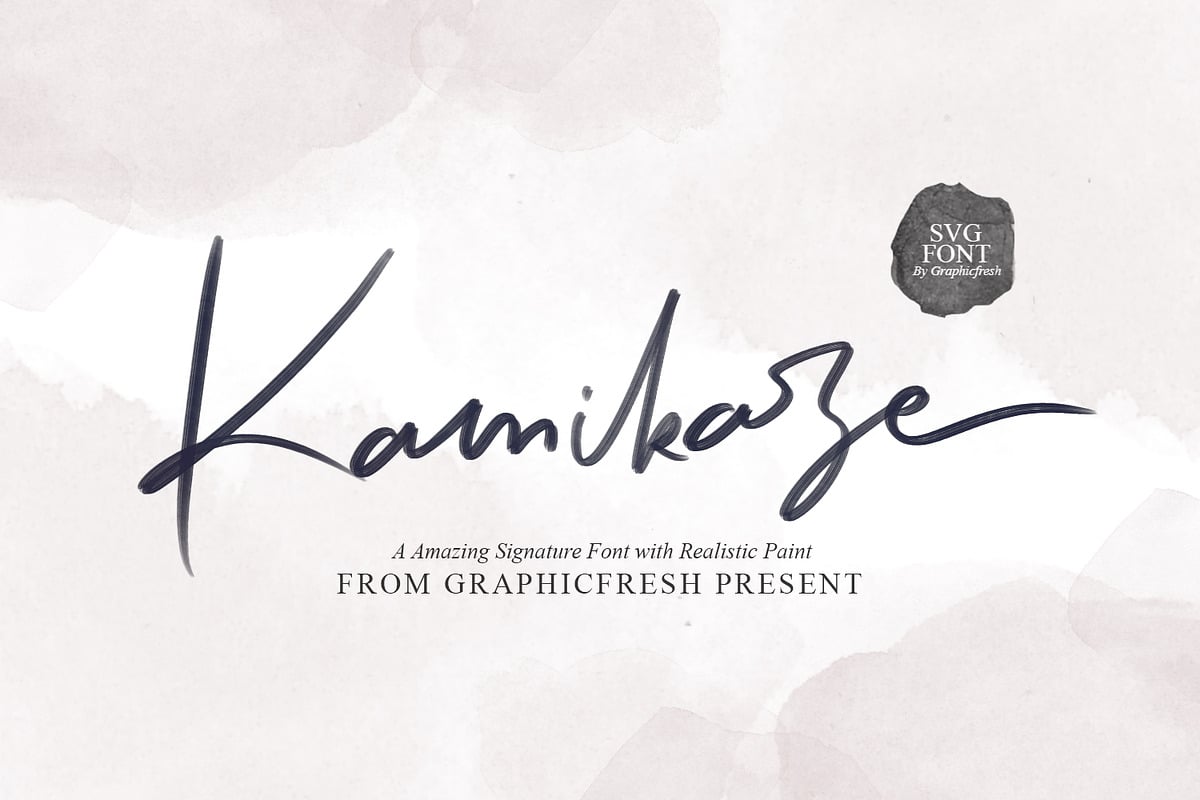
Kamikaze SVG Font
Bring the authenticity of a real handwritten signature into your designs with stunning oil paint texture.
Kamikaze is an SVG signature font that captures the fluid, expressive quality of genuine handwriting — complete with rich, realistic paint effects baked directly into the letterforms. Whether you're crafting luxury branding, wedding stationery, editorial layouts, or personal logos, this typeface delivers a level of organic authenticity that standard vector fonts simply can't match.
- 76 Unique Ligatures
- Additional alternates